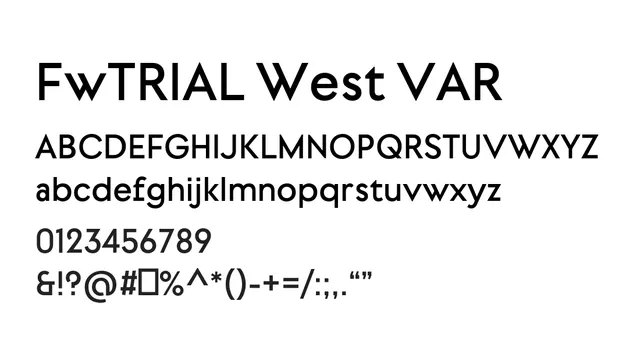
FwTRIAL West
FwTRIAL West, modern, clean
Comprehensive neo-grotesque sans-serif with six weights, offering complete flexibility for layered typography systems.
Ideal for comprehensive design systems requiring consistent weight progression. Six weights enable nuanced hierarchy from delicate light to commanding bold, suitable for everything from captions to display headings.
Works seamlessly with FwTRIAL serif for editorial refinement, or stands alone as a complete typographic system.